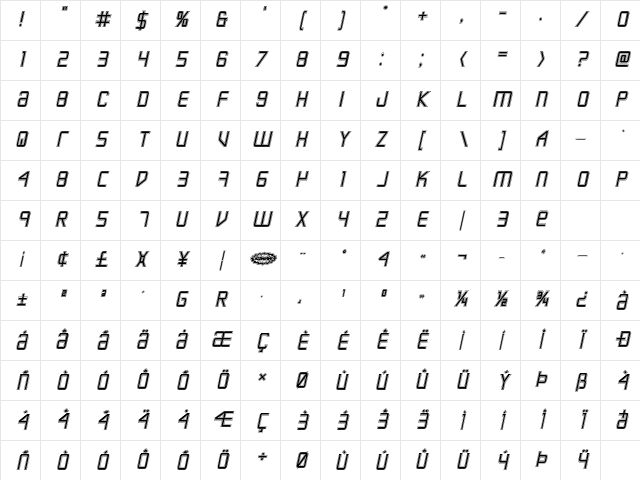
Escape Artist Academy Semi-Italic is a composed and adaptable typeface that performs quietly and consistently across a wide range of design contexts. The slanted form adds forward momentum and visual energy.